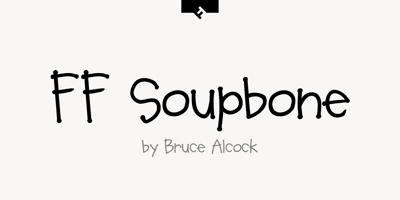
FF Soupbone Font Family was designed by Bruce Alcock and published by FontFont. FF Soupbone contains 4 styles and family package options. Canadian type designer Bruce Alcock created this script FontFont between 1993 and 2011. The family contains 4 weights and is ideally suited for advertising and packaging, festive occasions as well as film and tv. FF Soupbone provides advanced typographical support with features such as ligatures, case-sensitive forms, and stylistic alternates. It comes with proportional lining figures.